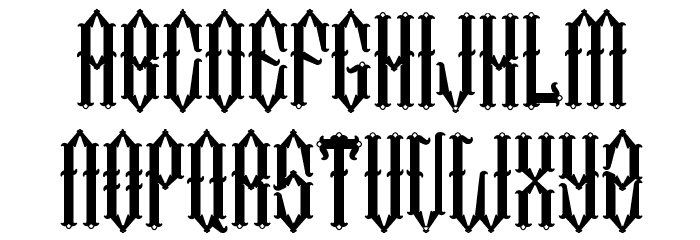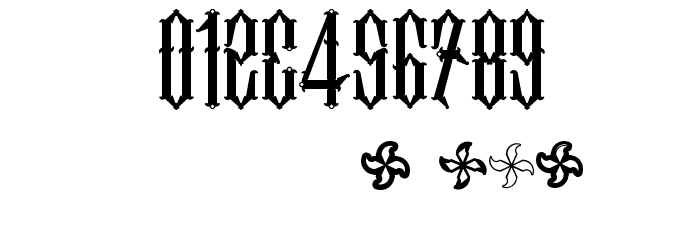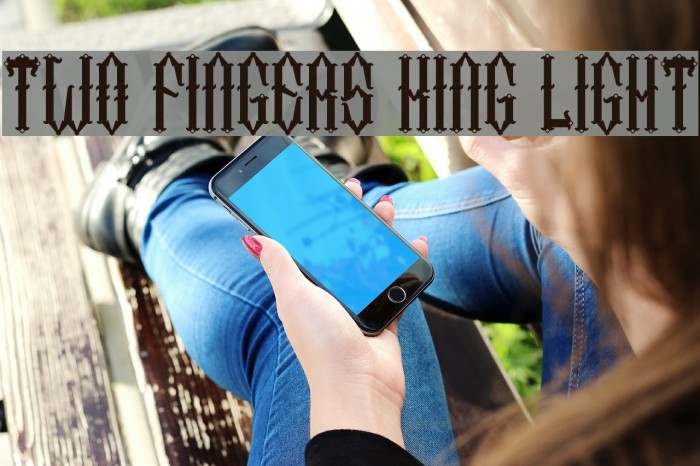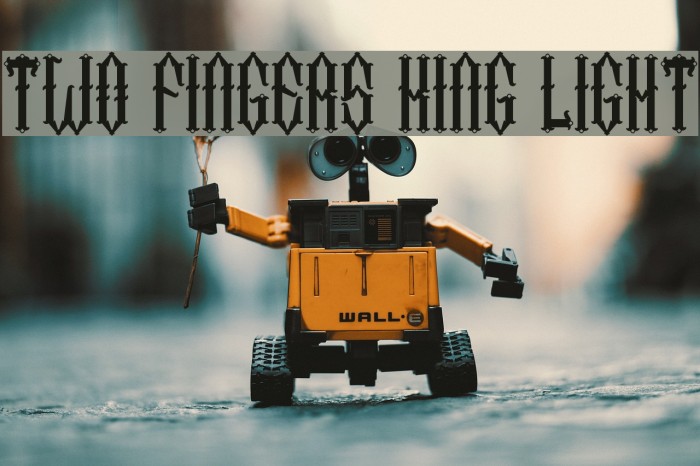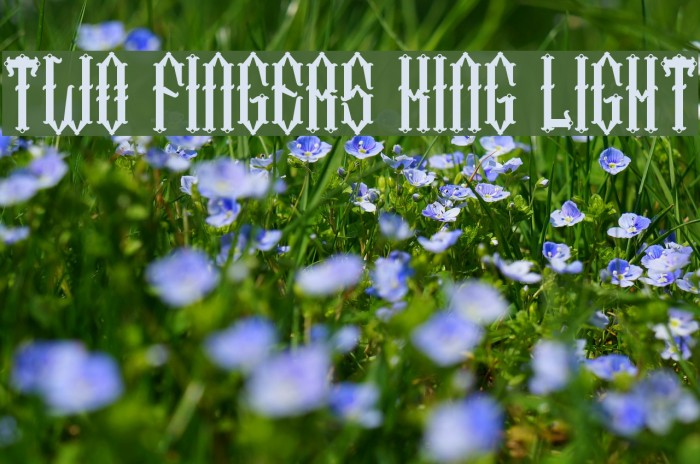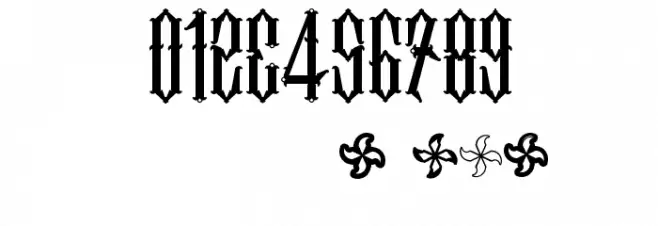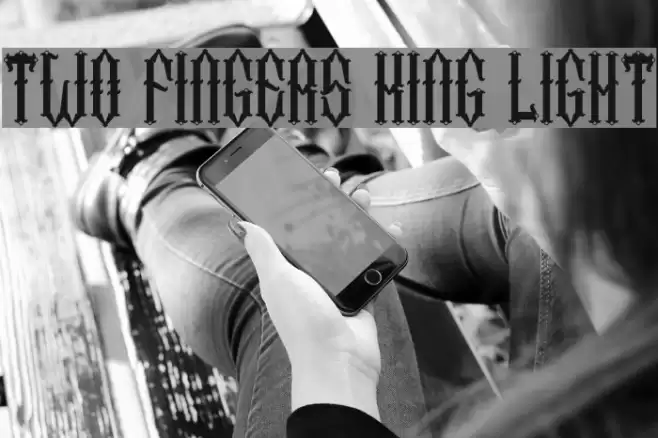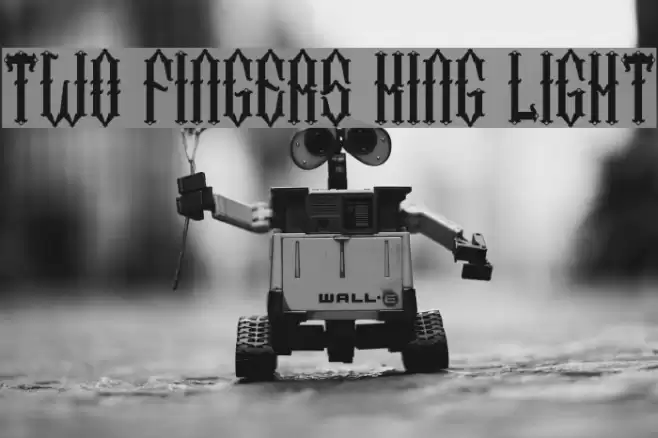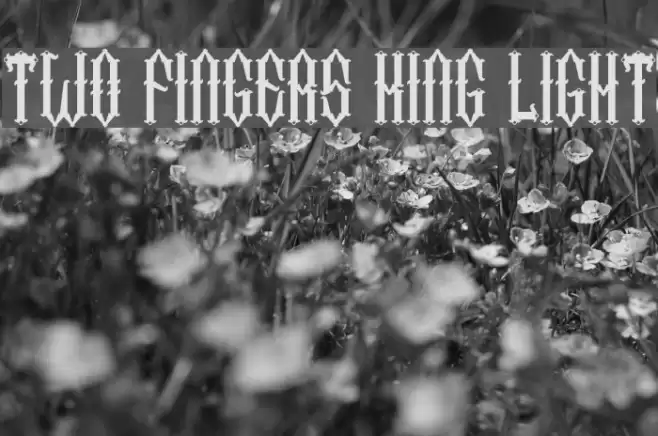
Two Fingers King Light Font
This font features a bold and intricate design reminiscent of traditional blackletter styles. The characters are tall and narrow, with sharp angles and decorative serifs that give it a gothic appearance. The uppercase and lowercase letters maintain a consistent style, with elaborate flourishes that enhance its ornate look. The numbers follow the same aesthetic, ensuring uniformity across all characters. Special symbols are equally decorative, adding to the font's overall complexity and visual interest.
A bold, gothic-style blackletter font with intricate details.
- Proposed Projects: Ideal for projects requiring a medieval or gothic theme, such as fantasy book covers, themed event invitations, or historical posters.
- Category: Blackletter
- Character Spacing: Tight
- Overall Style: Gothic, Decorative